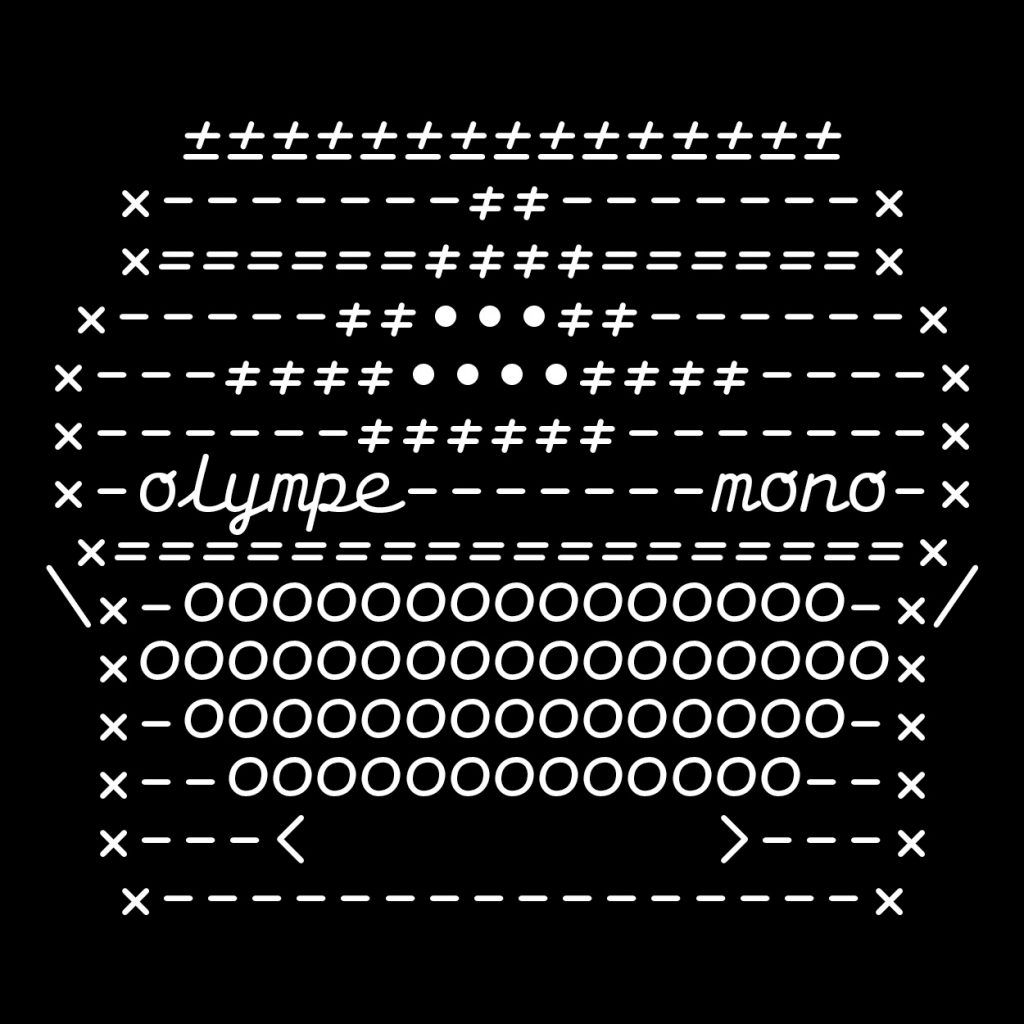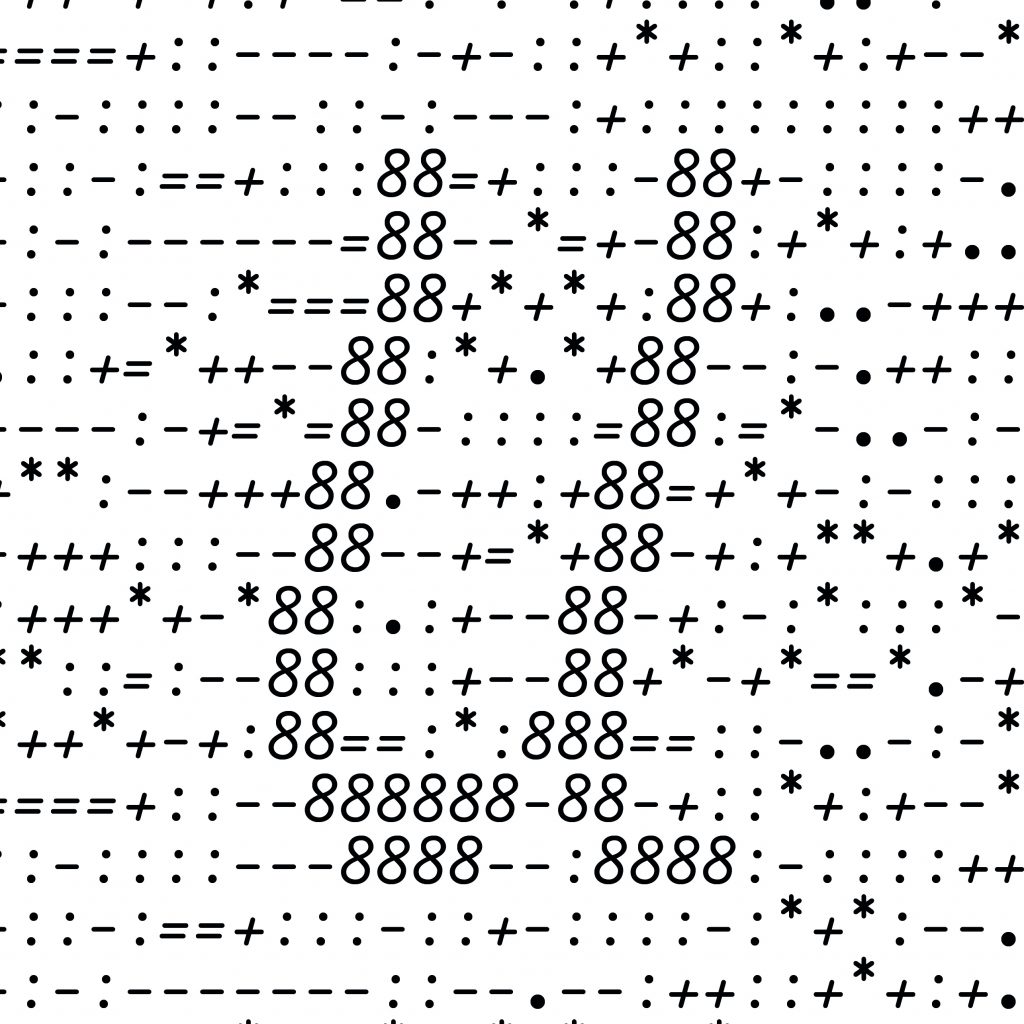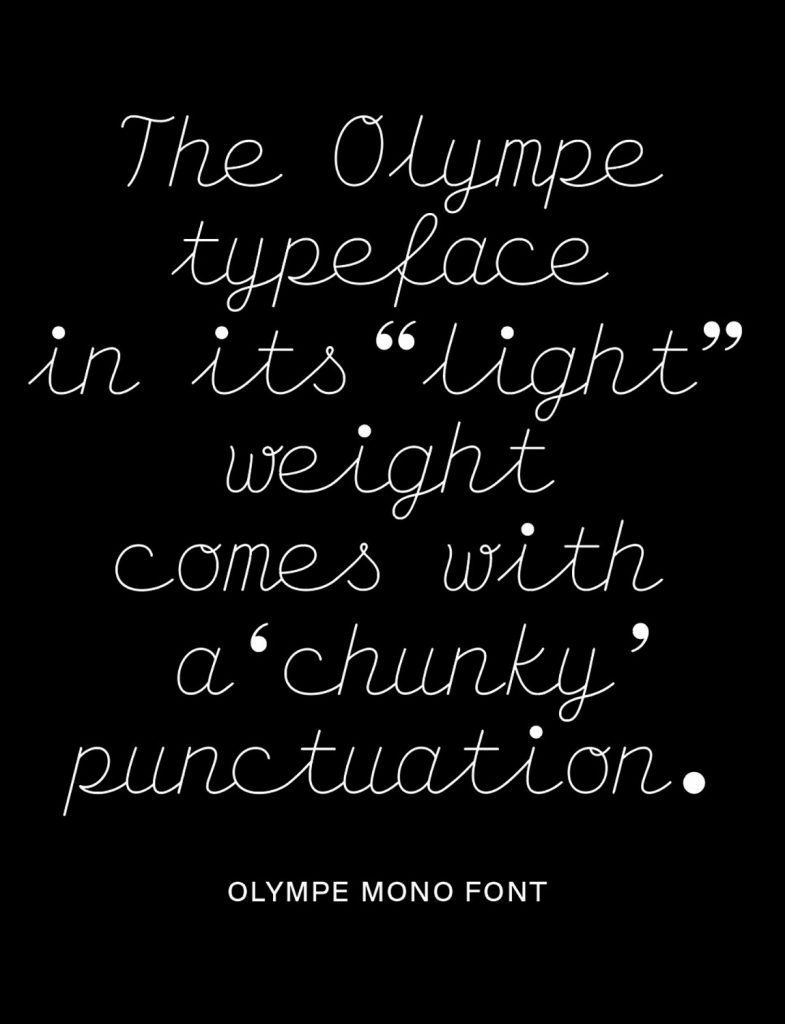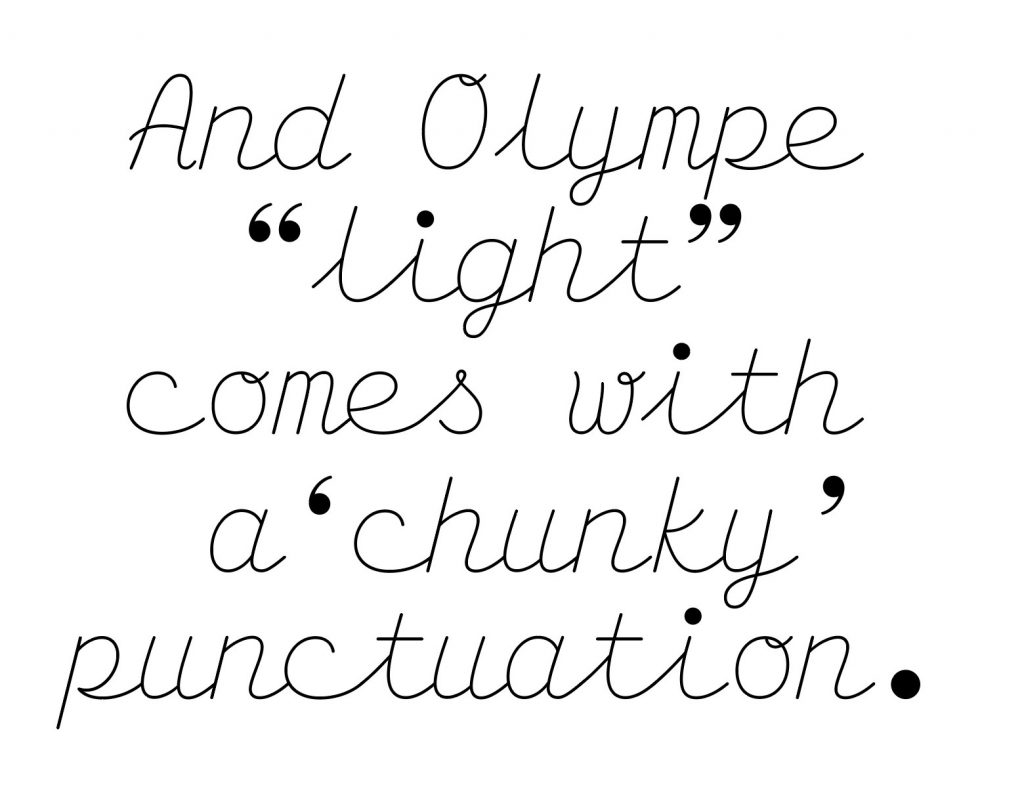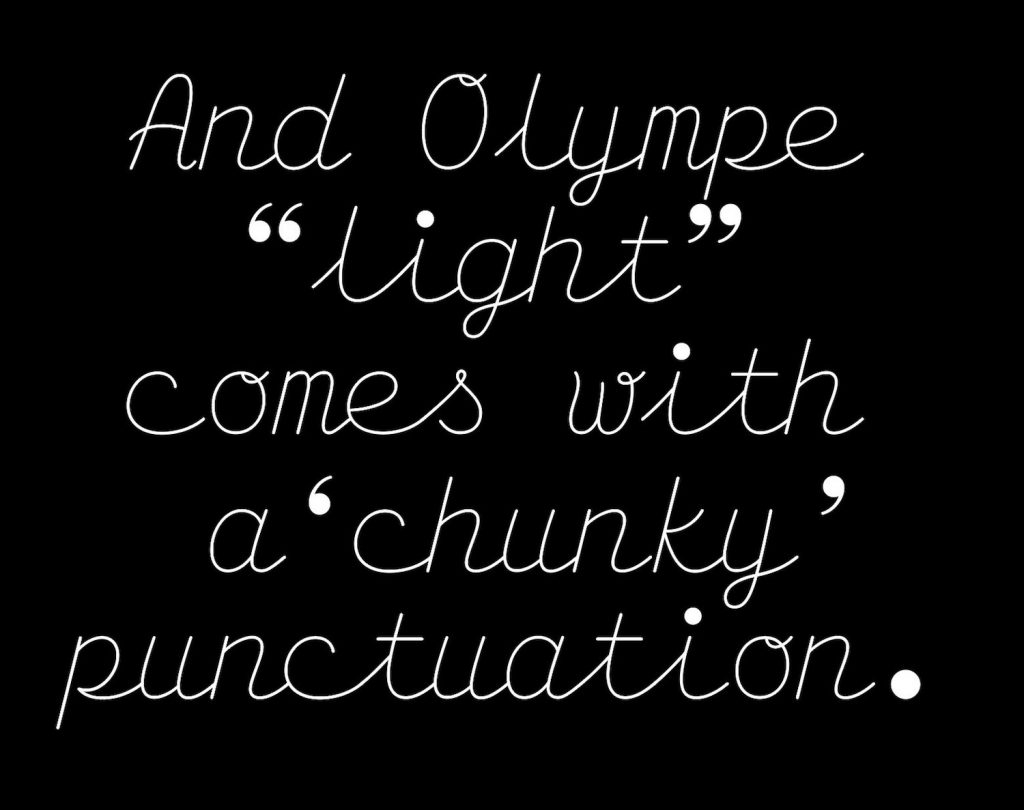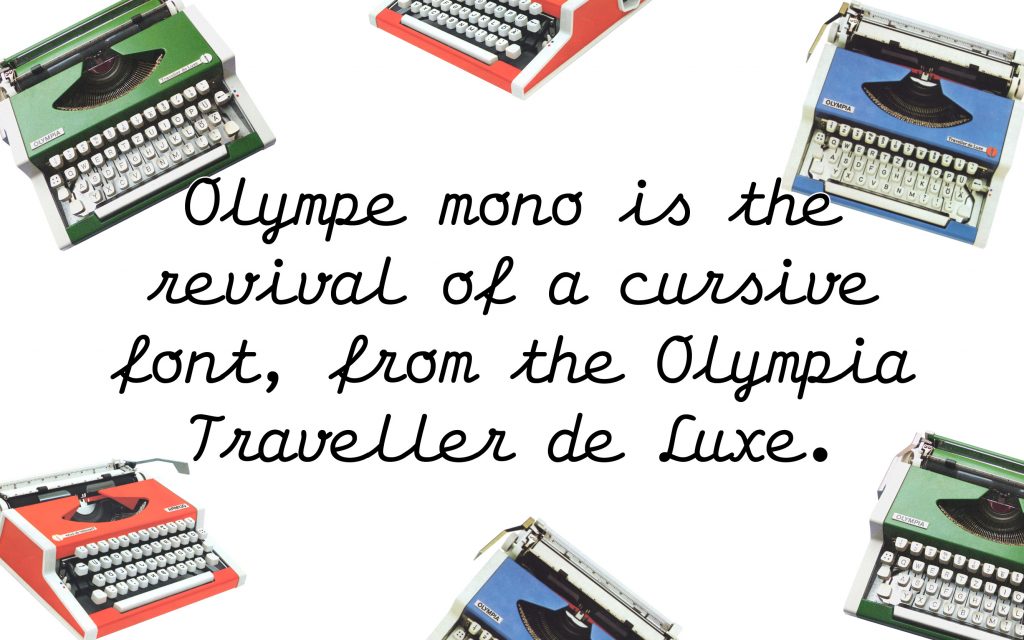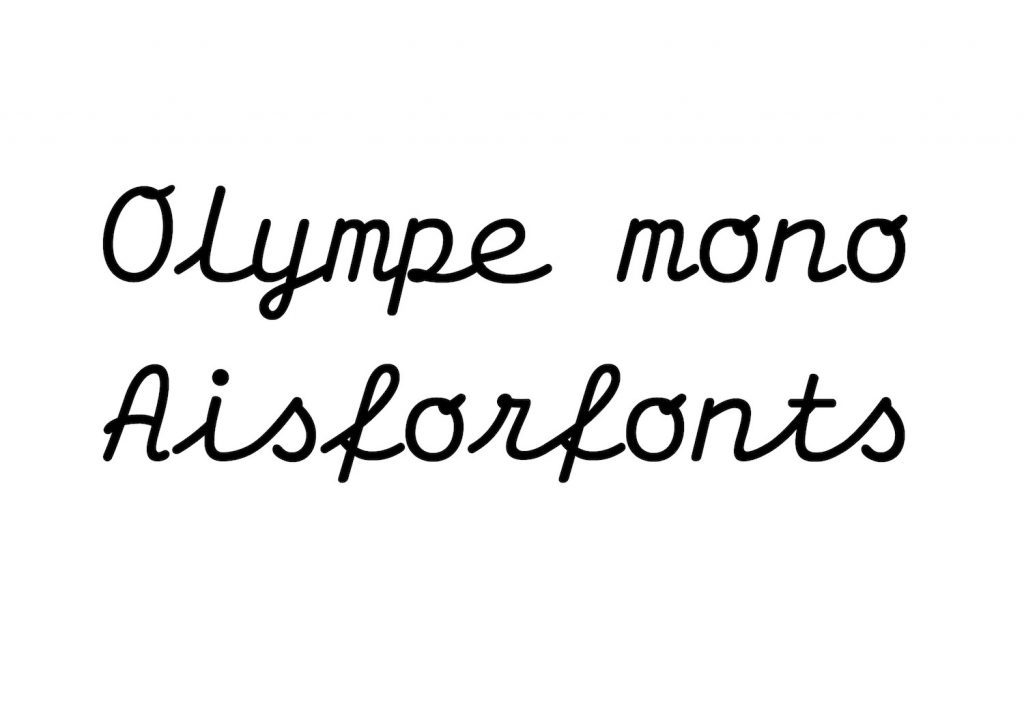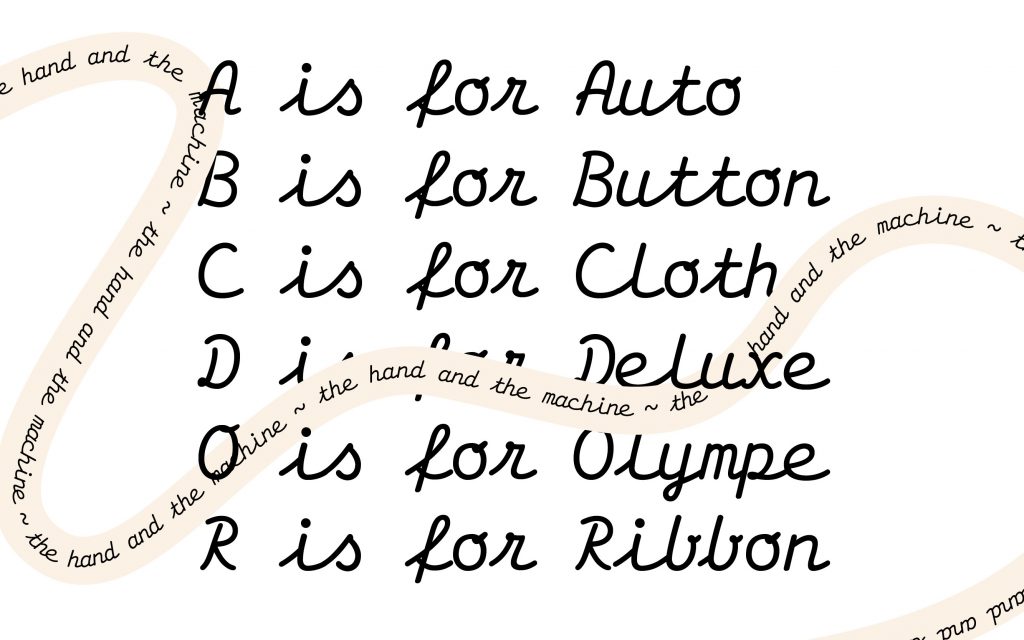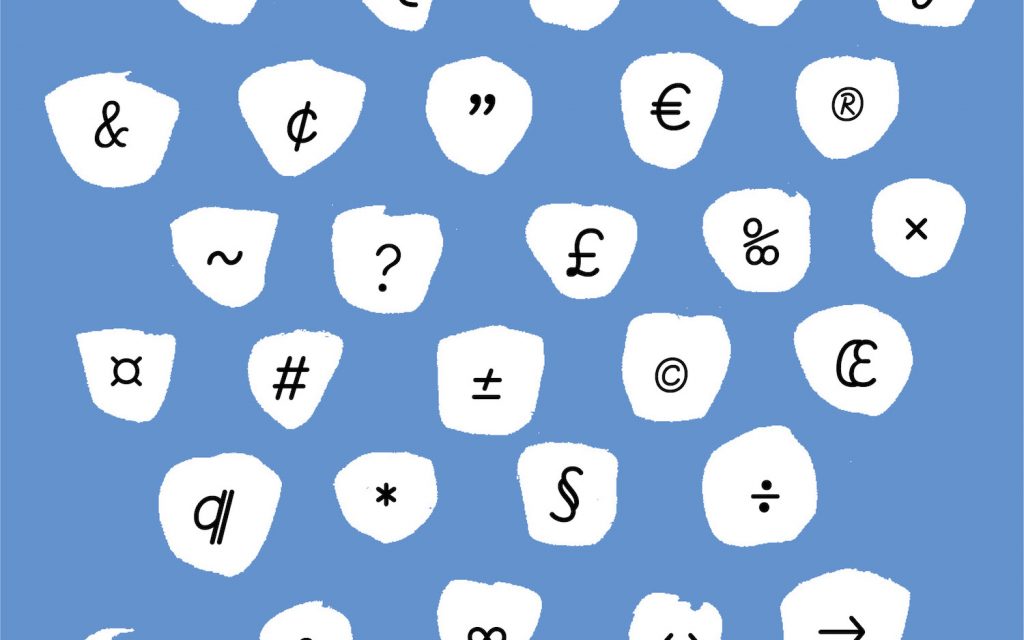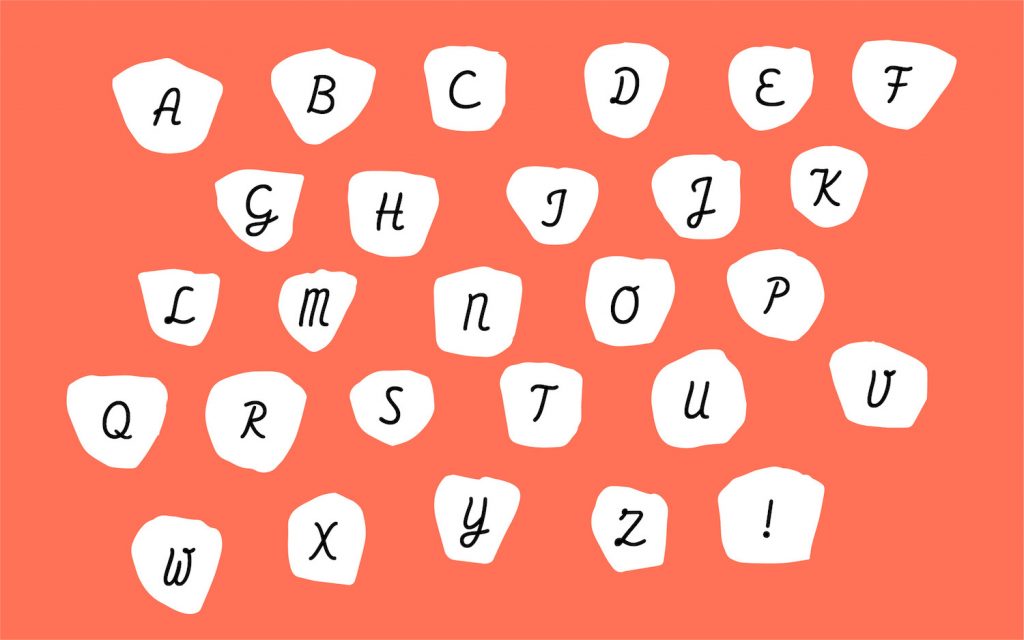
Name: Olympe
Designer: Émilie Rigaud
Foundry: A is for
Release Date: February 2022
Back Story: French type designer Émilie Rigaud founded the A is for type foundry in 2010, and since then the platform has shown its prowess in, and predilection for, typefaces that marry expressive visual concepts, technical precision, and unusually concept-driven approaches. Olympe is no different: Rigaud first started working on the font around a decade ago, initially intending it to be a revival of the original typeface installed on Olympia typewriters — the 1970s Traveller Deluxe models, to be precise.
In the early stages, the designs were based entirely on a “very poor scan” of a lettering sample Rigaud had found. “The point was not to make a perfect revival, but more to be inspired by the overall shapes and produce my own version,” she said. “I redrew the letters by hand on top of this terrible scan, added the shapes that were missing and finally digitized the whole set.”
Some years passed before she decided to start making a light version; then a few more went by with Olympe still sitting unreleased. Finally in 2021 Rigaud finished these two weights — light and regular — and released the font earlier this year. “Sometimes, a long time is needed to design a font, so that it has time to mature,” Rigaud said. “I am pretty sure that the Greek gods on top of Olympe were drinking very old Bordeaux and not Beaujolais nouveau produced two months before… Still, I would not recommend letting a decade go by before finishing a font.”
Why’s it called Olympe?
While the name clearly draws on the Olympia Traveller de Luxe typewriter that proved the inspiration for the font, Rigaud opted to use the French version. “It sounds good: it is a beautiful female name in French, and has this mythological touch that I like,” she explained. “Olympe is the highest mountain in Greece, supposedly the home of all Greek gods. They would gather there, on the very top of the mountain, hidden from human beings, enjoying good food and good drinks.”
This Greek reference also makes a nice connection between Olympe and another A is for font, David, whose name references the mythological shepherd who defeated Goliath the giant. It also acts as a precursor of sorts for another font in the works at the foundry, which Rigaud said will also have a mythological name, “so maybe all my teenage time spent drawing family trees of Greek mythological characters still lingers somewhere in my head.”
What are its distinguishing characteristics?
Olympe is a monospaced font billed as being “clumsy and charming” thanks to the fact that the flow of its cursive forms is occasionally broken, giving it a sense of liveliness because of the way it stretches itself out across the page. The characters’ shapes are mostly drawn from written lettering, while some are found in “some script fonts,” said the designer, pointing out the fact that “the design of ‘s’ or ‘f’ have nothing typographic… The fact that the letters are somehow forced to connect sometimes gives an irregular aspect that I find charming.” These irregularities include the extended ends on ‘e’ and ‘r’, which offer a striking contrast to shapes like ‘b’ and ‘d’ which have more abrupt finishing points.
Rigaud added: “The capitals have been a real challenge because they have to flow, they are really curvy, but you want to avoid this ‘cold noodle stuck in the bottom of the colander’ effect and keep their curves tensed.”
The letterforms are unusually wide for a font with comparatively small ascenders and descenders, “which creates an impression of very well defined lines and a feeling of horizontal movement,” said Rigaud. Olympe Light is so light as to be almost a hairline version; though as ever, there’s a twist: it bears “chunky big dots” to reference those created on old typewriters, which firmly punch punctuation onto the page.
What should I use it for?
Despite its frequent quirks and the fact Olympe is only available in two weights, it’s surprisingly versatile: it could work as captions in its regular form and as larger titles in Light. It expands and contracts in size beautifully; making it as well-suited to posters and billboards as more delicate applications.
“As long as it doesn’t go against the ethical line of the A is for fonts type foundry, people are free to use the font as they want!” says Rigaud. “I would very much like to see Olympe Light on a bus — these big panoramic advertisement posters we see in American movies.”
What other fonts should I pair it with?
Thanks to its distinctly scripty, cursive forms, Olympe would be best paired with a more solid sans serif font that would further accentuate its sense of liveliness and motion. Rigaud suggests putting it alongside an all caps sans serif would create an interesting contrast, and proposes that fellow A is for fonts David or Naoko would work well, “otherwise, why not pair it with a good old Helvetica or a good old Akkurat?”